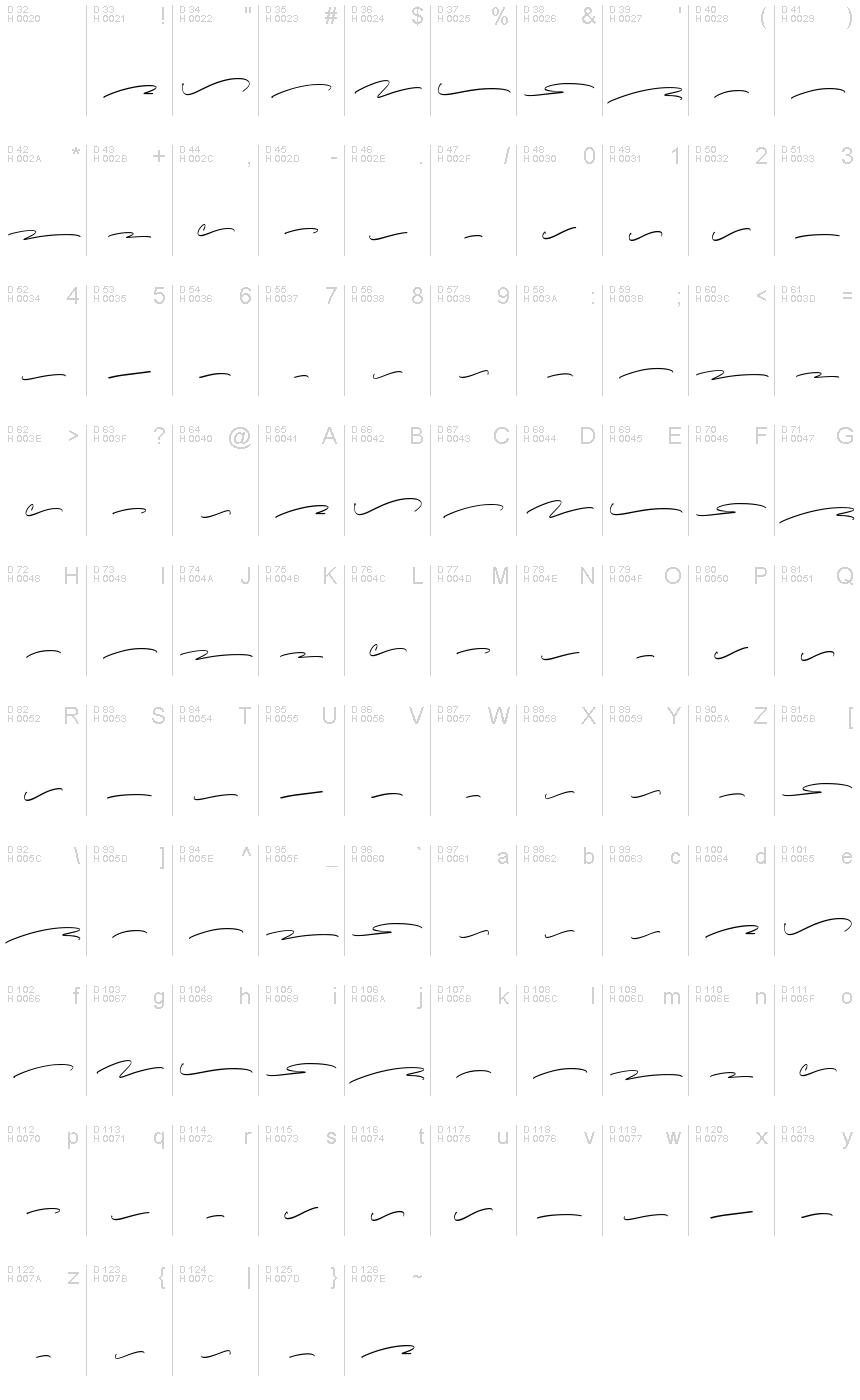
Hollgates Swash
Hollgates Swash, a captivating handwritten font crafted by Mozatype, exudes a whimsical elegance that effortlessly captivates the eye. With its fluid, light strokes and graceful swashes, this font emanates a sense of warmth and creativity, making it an alluring choice for a wide range of design projects.
This versatile font seamlessly bridges the gap between traditional calligraphy and modern typographic styles, making it a versatile choice for branding, packaging, editorial design, and even personal correspondence. Its distinctive character and expressive nature lend themselves well to applications that require a touch of personality and individuality, from elegant wedding invitations to vibrant social media posts.